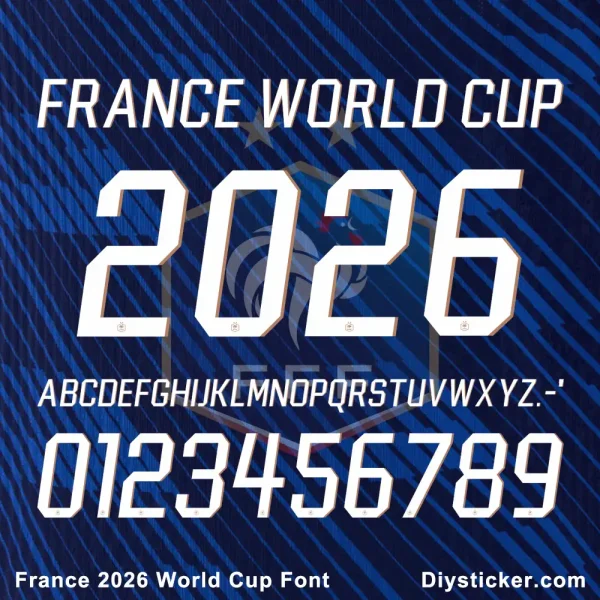
France 2026 World Cup Font Download
Capture the spirit of French football with the France 2026 World Cup Font, a complete typography kit designed for the official kit of the tournament. Whether you’re creating custom jerseys, fan apparel, posters, or digital content, this font set delivers the exact style seen on the pitch.